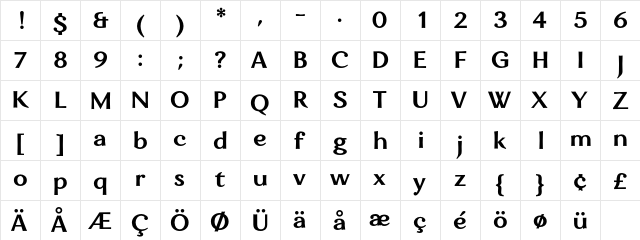
Eniza Bold
Design Context for Eniza Typeface
Eniza offers clean, dependable letterforms without strong stylistic allegiance, making it a practical choice for designers who need flexibility. Its bold stroke weight gives it real presence on the page.
Pro Tip: Pair Eniza with a font of contrasting weight or personality to build a more expressive typographic hierarchy.